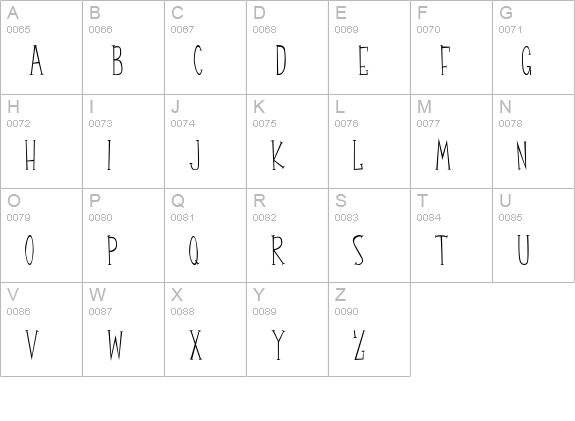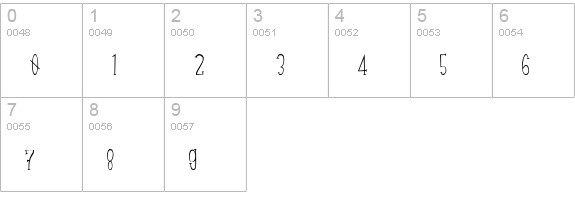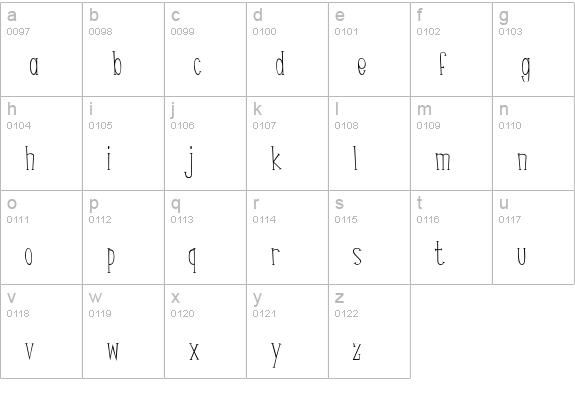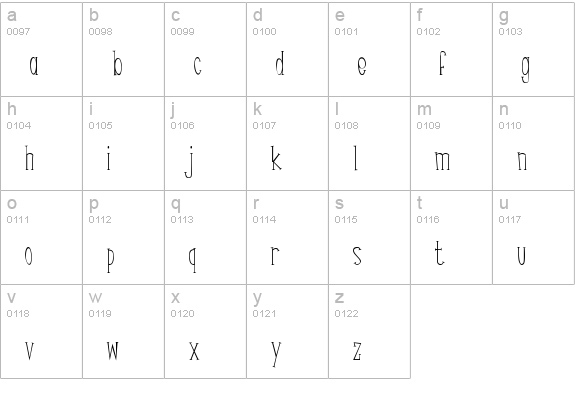
it's martini time! Font Details
Introducing "It's Martini Time!" font, the epitome of elegance and sophistication. This exquisite font is designed to elevate your designs to new heights, exuding a sense of class and refinement. With its sleek and sleek lines, "It's Martini Time!" font captures the essence of a perfectly crafted martini, ready to be enjoyed in style. This font is a celebration of free-spirited creativity, enabling you to bring a touch of glamour to your projects. Whether you're designing invitations for a high-end event, creating a luxurious logo for a premium brand, or adding a touch of opulence to your website, "It's Martini Time!" font is the perfect choice. And the best part? "It's Martini Time!" font is freely available to download at FontsMarket.com. We believe that great design should be accessible to all, and that's why we're offering this stunning font for free. It's our way of empowering designers and creators to bring their visions to life without any limitations. With its wide range of characters and impeccable attention to detail, "It's Martini Time!" font is a versatile tool that can be used across various design projects. Its timeless beauty and modern edge make it suitable for both print and digital applications, ensuring that your designs will stand the test of time. So, why wait? Raise your glass and toast to creativity with "It's Martini Time!" font. Download it for free at FontsMarket.com and let your designs shine with the elegance and sophistication they deserve. Cheers to great design and endless possibilities!